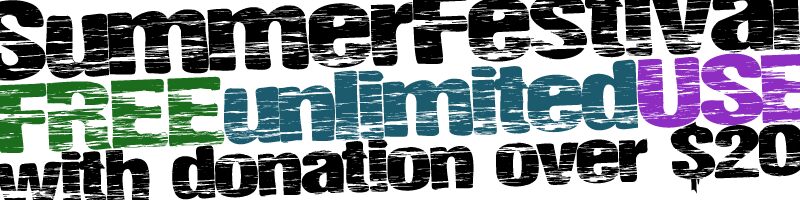
SummerFestival by Xerographer Fonts is a free eroded display font with broad, tightly packed letters and a streaked surface. Long horizontal scrapes cut across the forms like dry paint dragged over a sign. Rounded joins and uneven edges keep the imposing shapes from looking mechanical.
Its distressed festival-poster character makes it well suited to music events and band merchandise. The same weathered lettering could bring a rough, sun-faded quality to skate graphics or casual apparel branding. Those repeated scratches can become part of the artwork itself, echoing screen-print wear, torn-paper textures, and scuffed venue signage.